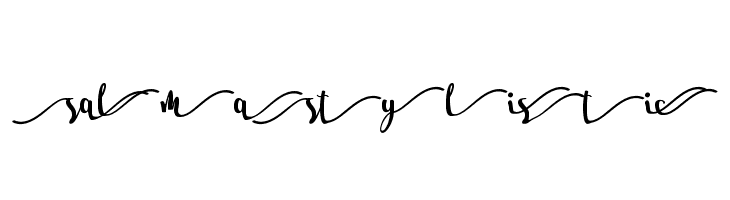
( Marius Miliunas - mvmdesign.org )
A bold, angular Gothic font with high contrast and a modern twist.
( Fonts by Rodrigo German - RASDESIGN )
A playful and whimsical font with characters depicted as unique animal illustrations.
A sleek, futuristic, condensed italic font with uniform strokes.
( Fonts by Dieter Steffmann )
Ornate Gothic-style initials with intricate patterns and flourishes.
( Fonts by Dieter Steffmann )
Ornate, medieval-style decorative initials with intricate floral designs.
( Måns Grebäck - www.mansgreback.com )
An elegant, cursive font with intricate swashes and flourishes.
A sleek, futuristic light italic font with a modern geometric design.
A bold, geometric font with modern, rounded edges.
Decorative font featuring checker-like circular game pieces in filled and outlined styles.
A bold, rounded font with a modern and playful style.
( Fonts by Aristeo Lugo )
A bold, geometric font with a modern, futuristic style.
( Fonts by Klaus Johansen - www.listemageren.dK )
A playful, domino-inspired font with bold, italicized characters enclosed in domino-like rectangles.
( Fonts by Maelle.K - Thomas Boucherie )
A decorative font with celestial and whimsical elements.
( Susi Type - creativemarket.com/subsib?u=subqi )
A bold, expressive script font with dynamic flow and interconnected letters.
( thealexzone.com/ )
A decorative font with intricate patterns and bold uppercase letters.
( Fonts by David Rakowski )
A bold, decorative font with barbed wire embellishments.
A dynamic and fluid script font with elegant curves and a bold presence.
A bold, rugged font with a handcrafted, vintage appearance.
( Fonts by Luedecke Design Font Co. - ldfonts.weebly.com )
A bold, vintage-style font with strong, angular lines and a classic aesthetic.
A bold, italicized font with strong, thick strokes and a dynamic slant.
A bold, dynamic script font with flowing, cursive letterforms.
( Andres Aarik - www.behance.net/-nc- )
A bold, playful font with a hand-drawn, whimsical style.
A bold, distressed font with a rugged, grunge texture.